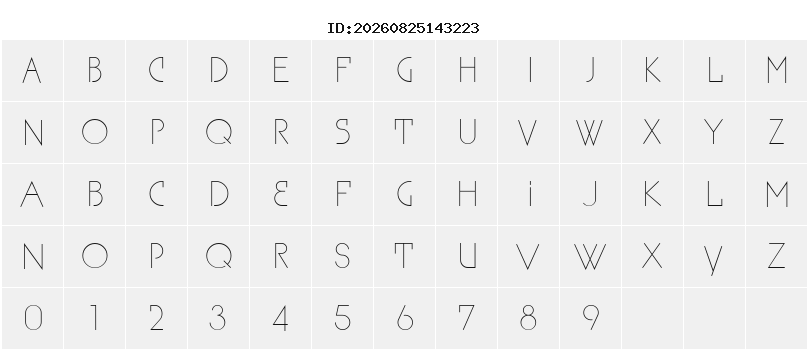
SPThais Preview
• Font Name: SPThais
• Font Style: Light
• Font ID: Macromedia Fontographer 4.1 SPThais Light
• Full Font Name: SPThais Light
• Version: Macromedia Fontographer 4.1 29/07/2002
• PostScript Name: SPThaisLight
About SPThais.ttf
SPThais.ttf is a modern, elegant sans-serif font designed for ultimate readability and visual harmony. Perfect for branding, headlines, web design, and print materials.